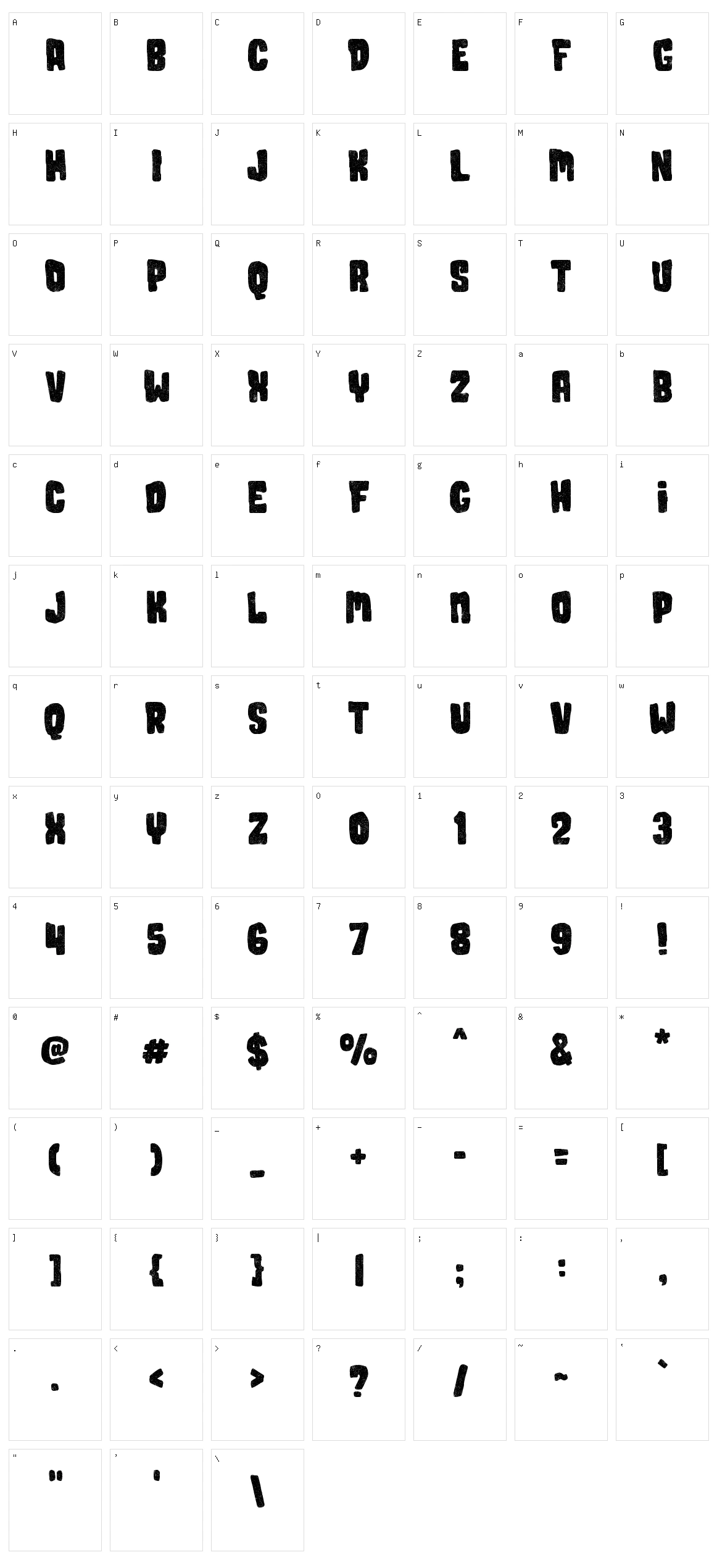
The free font Sacremende Distressed is carefully designed by Lauren Ashpole, showcasing a thoughtful balance of creativity and usability and falls under the Eroded font style. When you download the ZIP file, it contains only 719.58 KB of font files, making it lightweight and quick to download. Please review the license details below to understand permitted usage and distribution rights. If license information is not available, we recommend using this font for personal projects only or contacting the author directly for commercial usage permissions.